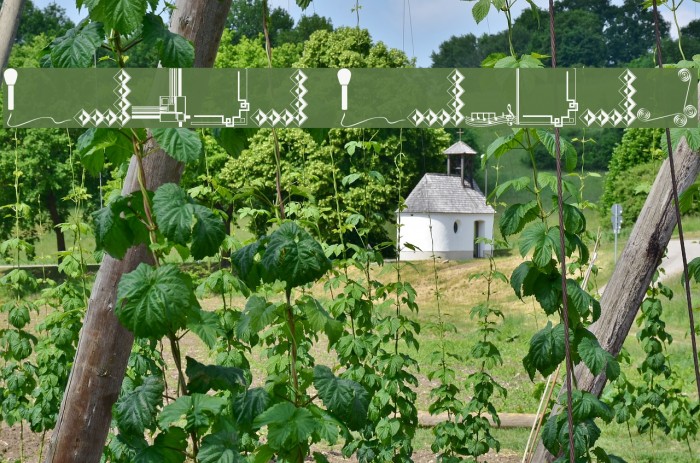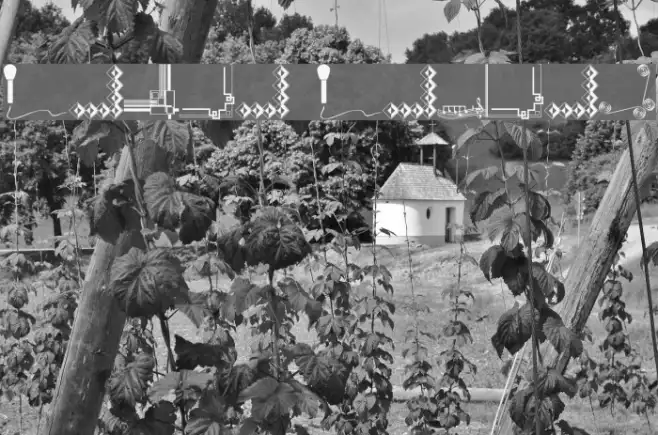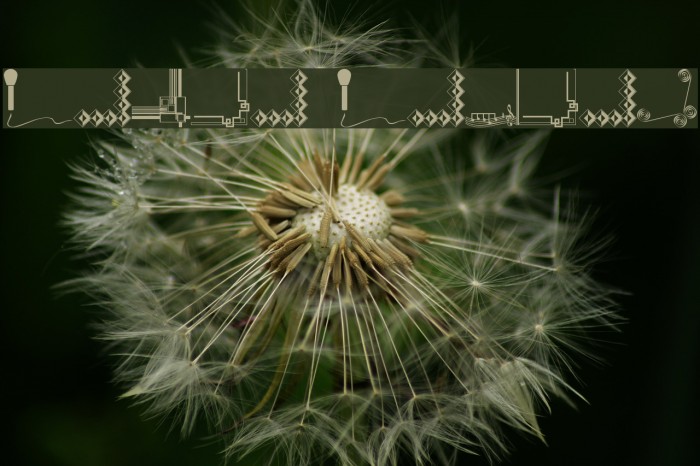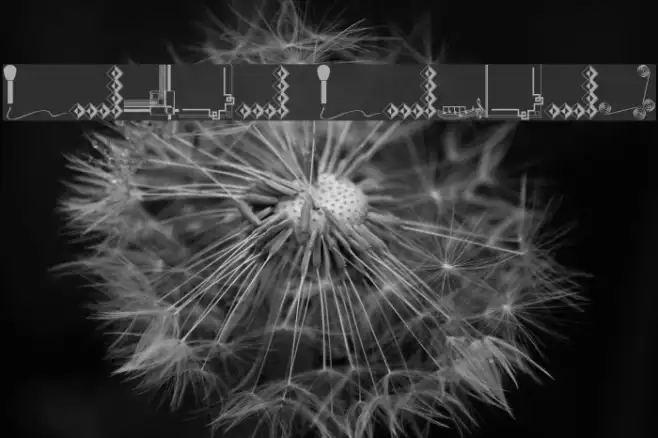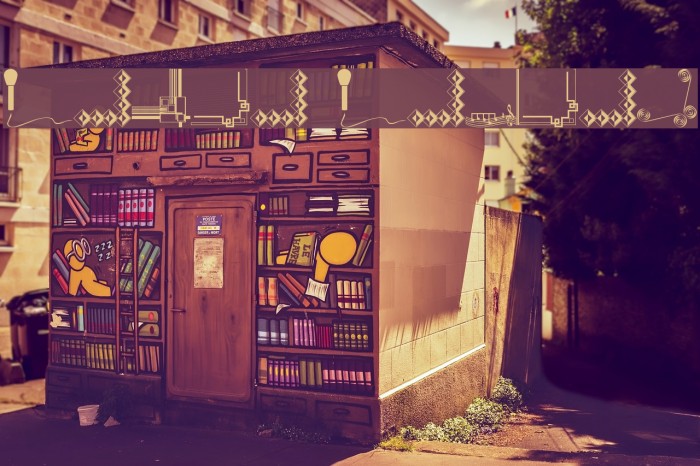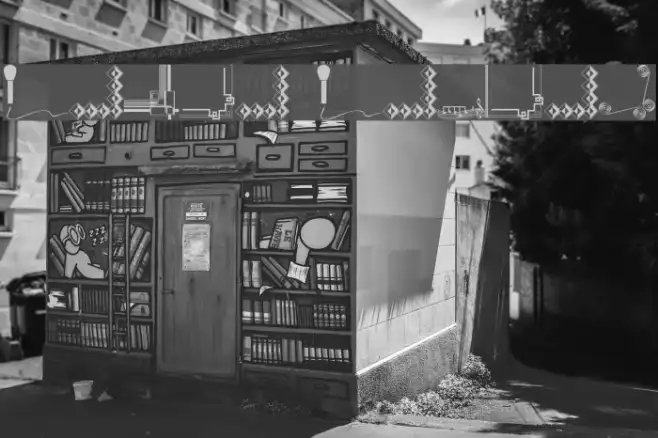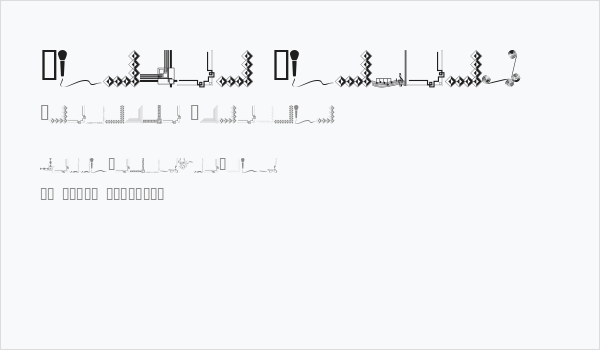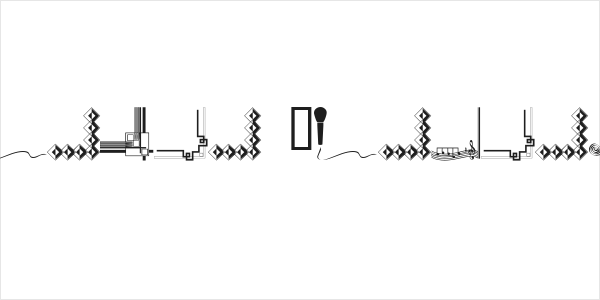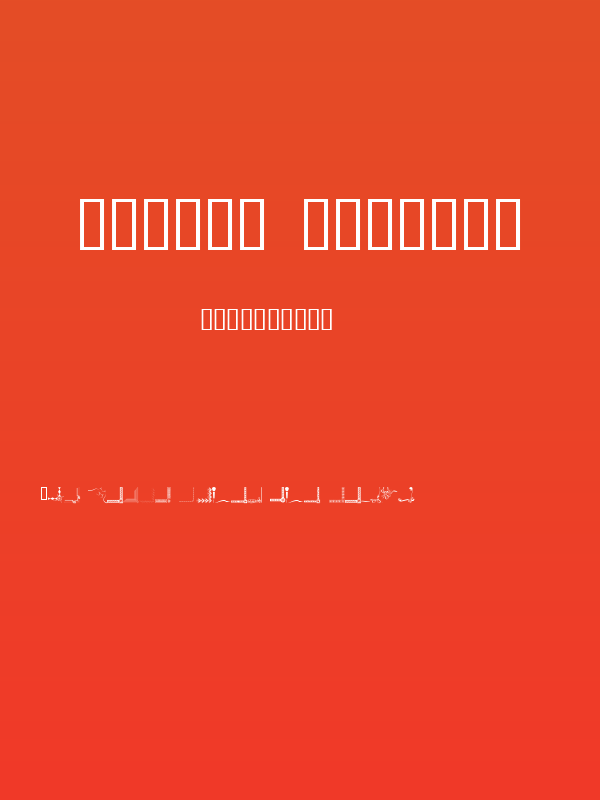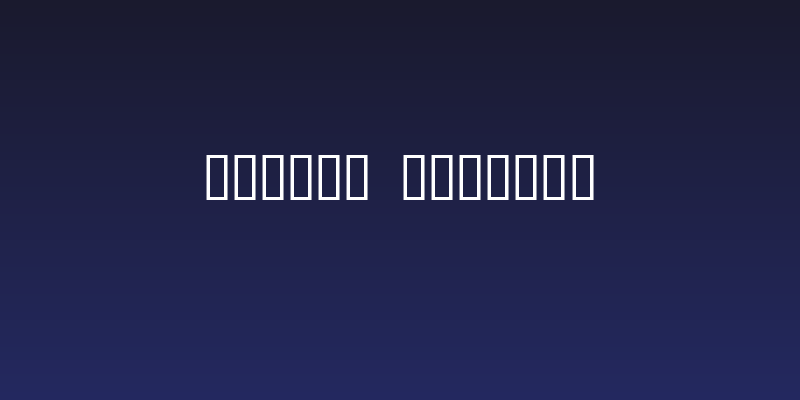
Border Corners Font
Border Corners Description
This is not a traditional font but rather a collection of decorative border corners. Each character is represented by a unique corner design, featuring intricate patterns and artistic elements. These designs are highly stylized and vary significantly in complexity and style, ranging from simple geometric shapes to elaborate, ornate motifs. The corners are designed to be used as embellishments for borders or frames, adding a decorative touch to various design projects. They are not intended for text but rather for enhancing visual layouts with artistic flair.
| Use Case | Decorative embellishments |
| Proposed Projects | Ideal for use in graphic design projects such as invitations, certificates, scrapbooking, and any creative work requiring decorative borders. |